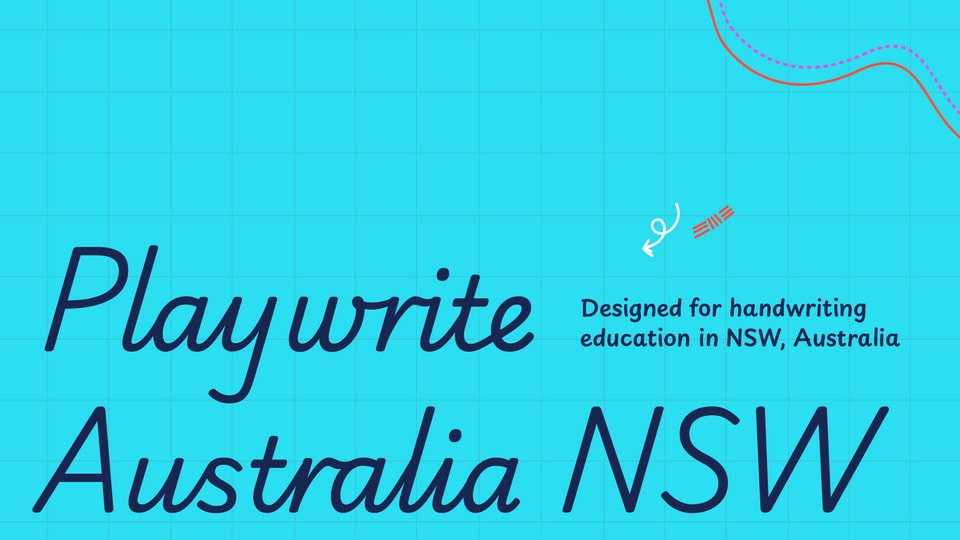
Download Playwrite Australia font, a typeface that allows the creation of primary school cursive fonts. All Australian provinces employ modern cursive letters for handwriting education, which are taught in a progressive manner.